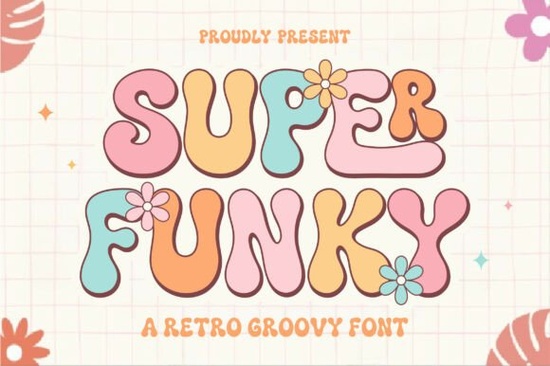
Super Funky Font is a standout choice for anyone looking to add a retro vibe to their design projects. With its bold, chunky curves and playful style, this font brings a nostalgic energy that’s perfect for t-shirts, posters, and social media graphics. Whether you're working on a personal project or creating for clients, Super Funky adds a unique flair that sets your work apart.
If you're into vintage aesthetics or want to give your designs a fun twist, Super Funky Font is an excellent addition to your collection. Its 60s and 70s inspiration makes it ideal for branding, eye-catching headlines, and any creative endeavor that needs a bit of personality. The font is easy to use and works well in both digital and print formats.
Super Funky Font stands out because of its distinctive character and versatility. It's not just a font it's a style statement. The boldness of the letters gives it a strong presence, while the curved shapes add a sense of movement and playfulness. This combination makes it great for logos, banners, and other visual elements that need to grab attention.
For designers and crafters, this font offers a fresh alternative to more traditional typefaces. It’s especially useful when you want to create something that feels a bit more casual or rebellious. Whether you're designing for a music festival, a retro-themed event, or a brand with a fun personality, Super Funky Font can help bring your vision to life.
This font shines in a variety of applications. For example, it’s perfect for t-shirt designs that need a bold, eye-catching look. It also works well for poster designs, especially those with a vintage or retro theme. Social media posts, Instagram stories, and Facebook banners can all benefit from the energetic feel of Super Funky Font.
Small businesses and print-on-demand sellers will find it particularly useful. Adding a unique font to product designs can make them stand out in a crowded market. Plus, the font is easy to customize and works well with different color schemes and backgrounds.
To get the most out of Super Funky Font, consider pairing it with simpler typefaces for balance. Using it as a headline or title can help draw attention without overwhelming the rest of your design. You can also experiment with different sizes and spacing to see what works best for your project.
When using the font in digital formats, make sure to test it across different devices and platforms. This ensures that the style remains consistent and readable. For print projects, check how the font looks in various sizes and colors to avoid any unexpected results.
Super Funky Font is a versatile and stylish choice for designers, crafters, and small business owners. Its retro-inspired design adds a fun and nostalgic touch to any project. Whether you're creating for personal use or commercial purposes, this font can help elevate your work with its bold and playful character.
- Try pairing Super Funky Font with simpler typefaces for balance.
- Test the font on different devices and platforms for consistency.
- Experiment with size and spacing to enhance readability.